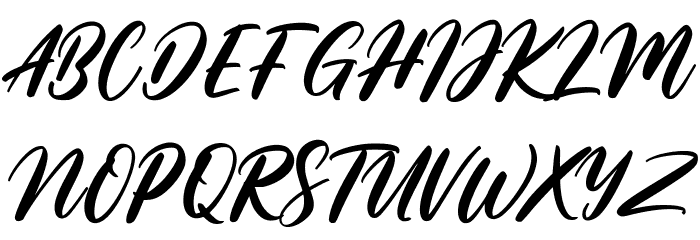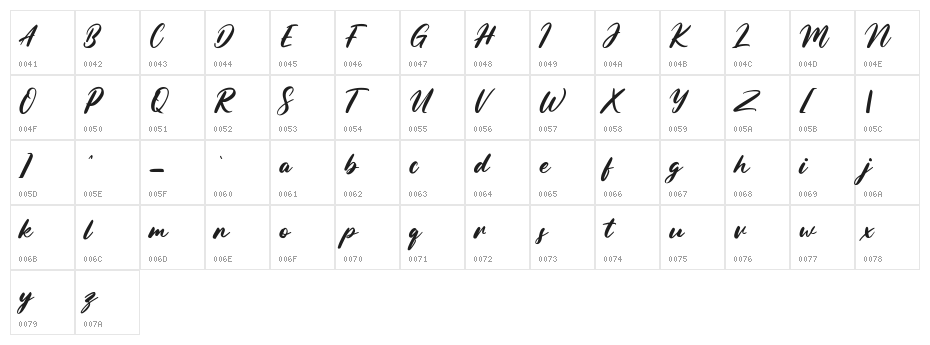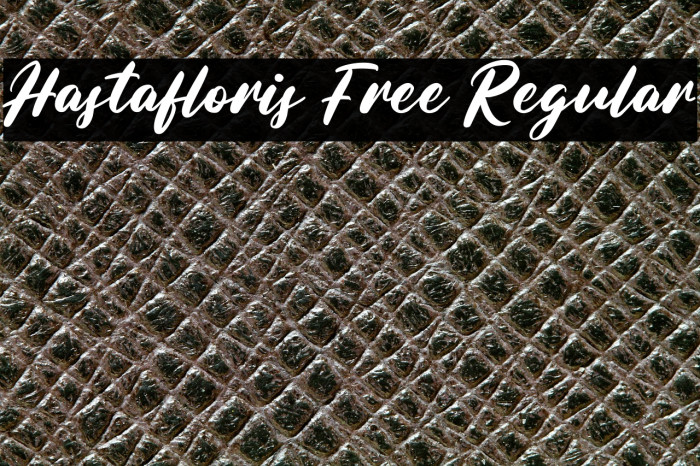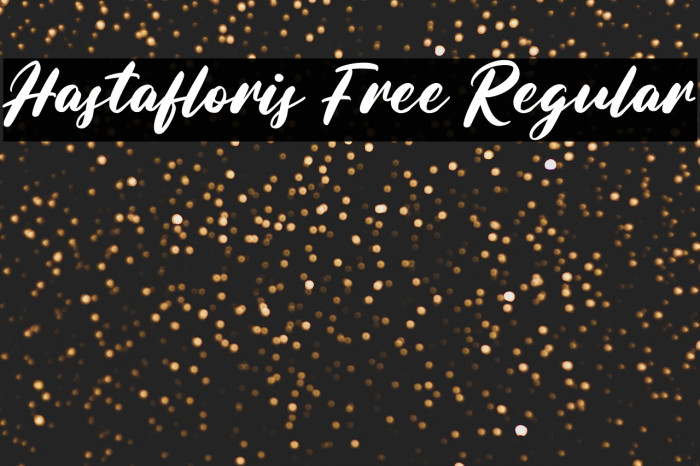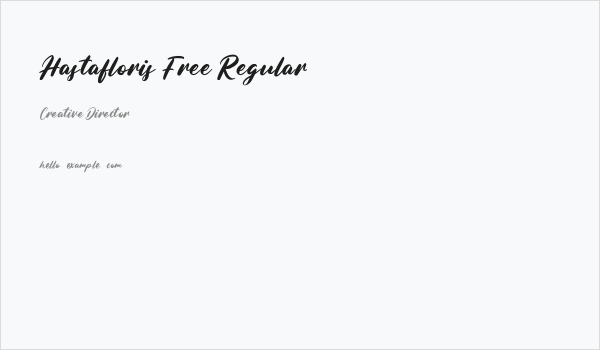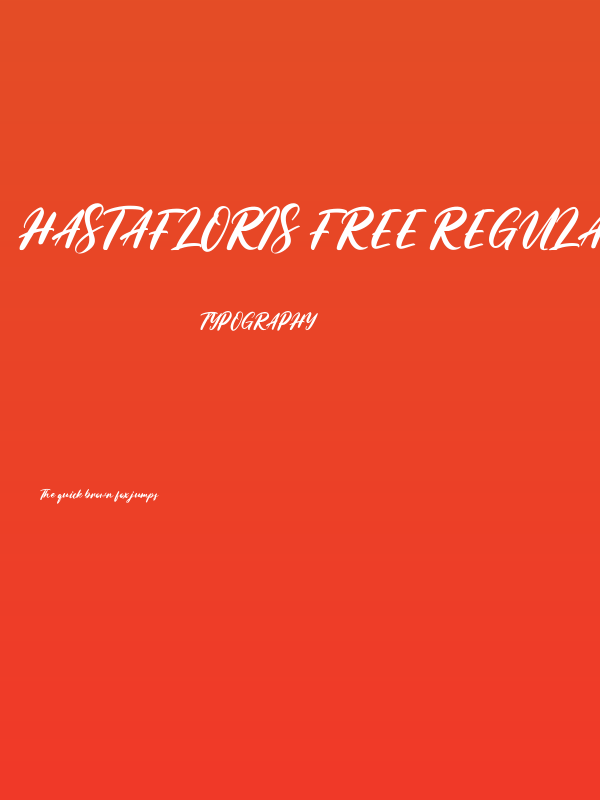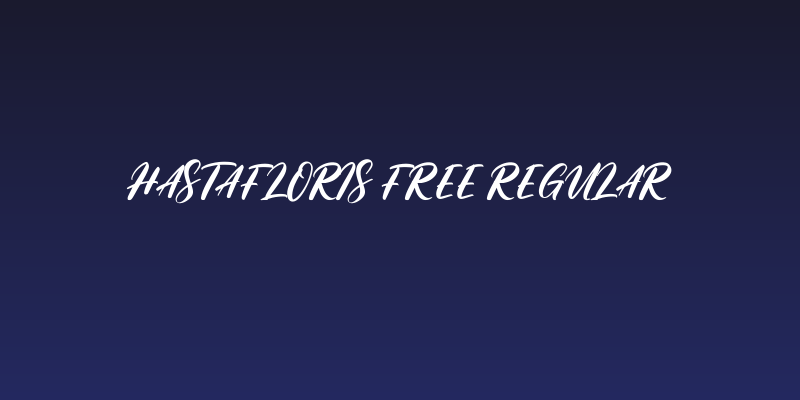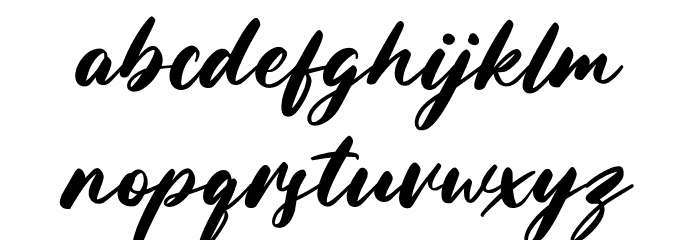
Hastafloris Free Regular Font
Hastafloris Free Regular Description
This font features a flowing, cursive style with elegant, sweeping strokes that give it a handwritten appearance. The characters are connected, creating a seamless and fluid look. The uppercase letters are bold and prominent, while the lowercase letters maintain a consistent flow, enhancing readability. The font exhibits a medium contrast in stroke thickness, adding to its dynamic and lively character. Its overall style is modern yet retains a classic touch, making it versatile for various design applications.
| Proposed Projects | Ideal for wedding invitations, greeting cards, branding, and logo design where a personal, elegant touch is desired. |